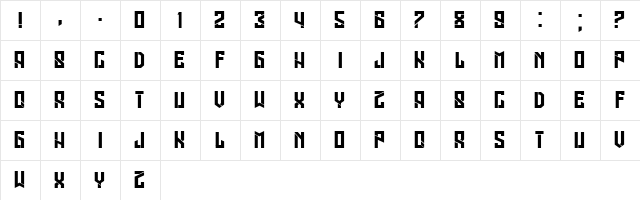
Legionary Regular
Design Context for Legionary Typeface
Legionary is a composed and adaptable typeface that performs quietly and consistently across a wide range of design contexts.